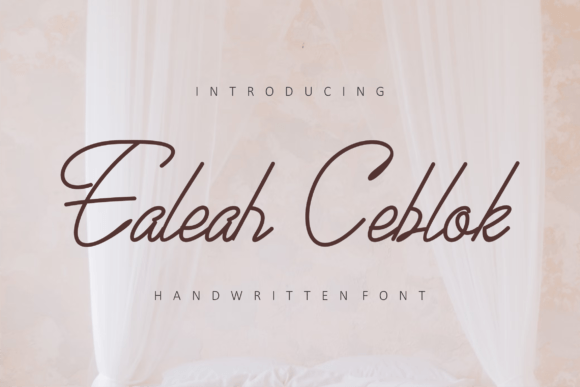
Prepare to be mesmerized by Ealeah Ceblok, a script font that radiates elegance and sophistication. Its meticulously crafted curves and intricate details evoke a sense of timeless allure, making it the perfect choice for discerning designers seeking to elevate their creations.
Ealeah Ceblok is not just a font; it's an artistic masterpiece that transforms words into captivating visual experiences. Its flowing strokes and delicate flourishes lend an air of refinement to any design, whether it's a captivating clothing brand logo, an enchanting invitation, or a heartfelt personal note.
Immerse yourself in the world of Ealeah Ceblok and discover the endless possibilities it holds. Its versatility empowers you to weave magic across a myriad of projects, from enchanting social media posts to breathtaking website headers. Let your imagination soar as you witness this font's ability to elevate your designs to new heights of beauty and sophistication.
With Ealeah Ceblok at your fingertips, you'll possess the power to craft designs that resonate with your audience on an emotional level. Its captivating curves and intricate details will draw their gaze, inviting them to explore the depths of your creations.